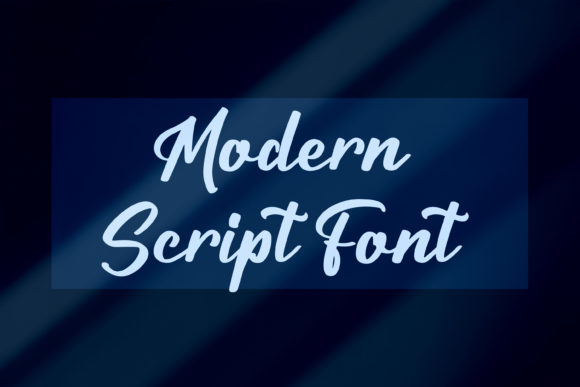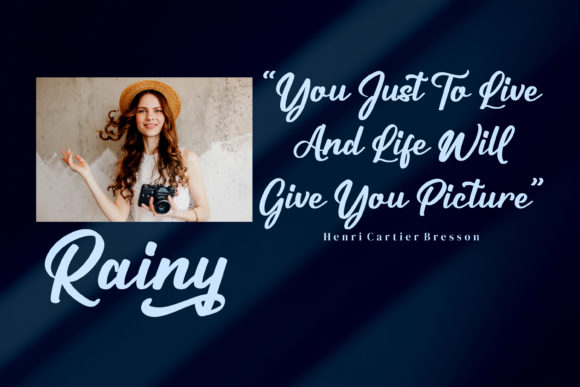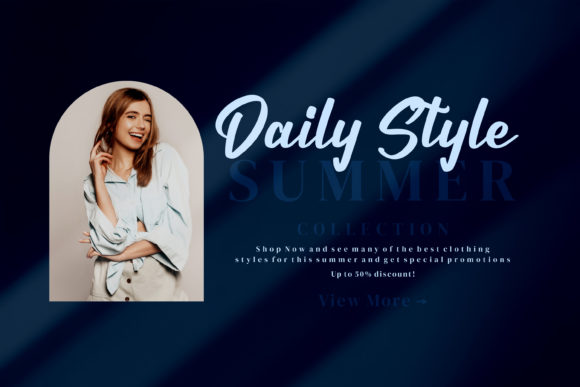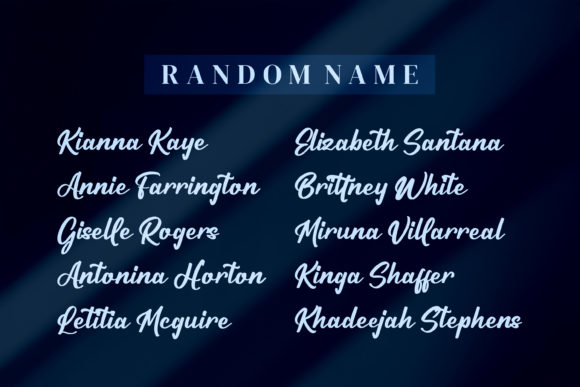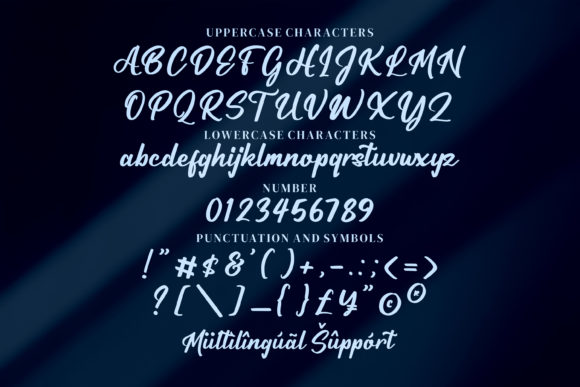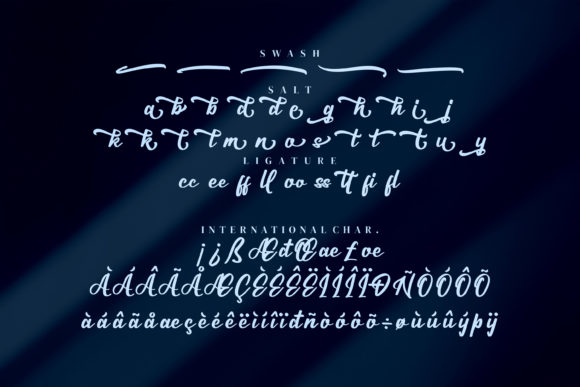
Introduction to Kamehaya Bintang Font
As designers, we’ve all been there – staring at a blank page, struggling to find the perfect font to capture the essence of our creative project. It’s that moment when the right typography can make all the difference between a good design and a great one. And that’s exactly what the Kamehaya Bintang Font is designed to do.
With its gorgeous and bold handwritten style, Kamehaya Bintang Font is the perfect addition to any design resource. Whether you’re working on a high-quality magazine cover, a free download promotional material, or a logo that demands attention, this font is sure to bring a touch of sophistication and elegance to your work.
But what sets Kamehaya Bintang Font apart from other fonts is its PUA encoded feature, which allows for easy access to all glyphs and swashes. This means you can add tons of nostalgic character to your designs without any hassle, making it a valuable resource for designers looking to take their creative projects to the next level.
Key Features of Kamehaya Bintang Font
- High-quality typography with a unique, hand-drawn design, ideal for creative projects.
- Available in a single size, making it easy to use across different design applications.
- Designed with a high resolution of 300 DPI, ensuring crisp and clear typography in print and digital applications.
- Suitable for a variety of design projects, including branding, packaging, and editorial design, thanks to its versatility and creative appeal.
Honest Review: Kamehaya Bintang Font
As a designer, I’m always on the lookout for high-quality design resources that can elevate my creative projects. The Kamehaya Bintang Font is one such resource that caught my attention, and I’m excited to share my honest review with you.
One of the standout features of this font is its transparent background, making it perfect for overlaying on images or videos. I’ve used it in several design projects, and it’s always delivered great results.
- Transparent background for easy overlaying
- Some users may find the font too ornate for certain design projects
- Limited font styles available
Overall, I’m impressed with the Kamehaya Bintang Font. It’s a great addition to any designer’s toolkit, and I’ve already recommended it to several colleagues. If you’re looking for a high-quality, free font for your creative project, I’d definitely recommend giving it a try.
Working with Transparent Background
When using the Kamehaya Bintang Font, you can take advantage of its transparent background feature. This allows for seamless integration with your design and prevents any unwanted background distractions.
Tips for Getting the Most Out of Kamehaya Bintang Font
To maximize the effectiveness of the font, experiment with different font sizes, colors, and combinations. This will help you achieve a unique look that suits your creative project.
The Kamehaya Bintang Font is ideal for various design projects, including logos, posters, business cards, and social media graphics. Its high-quality design makes it a versatile resource for any creative endeavor.
Compared to Kamehaya Bintang Font, Noto Sans has a more modern and sleek look, while Kamehaya Bintang Font has a more playful and vintage feel. Noto Sans is ideal for use in digital products, apps, and websites where a clear and readable font is necessary.
Compared to Kamehaya Bintang Font, Great Vibes has a more refined and luxurious look, while Kamehaya Bintang Font has a more playful and casual feel. Great Vibes is ideal for use in wedding invitations, branding, and other high-end design projects.